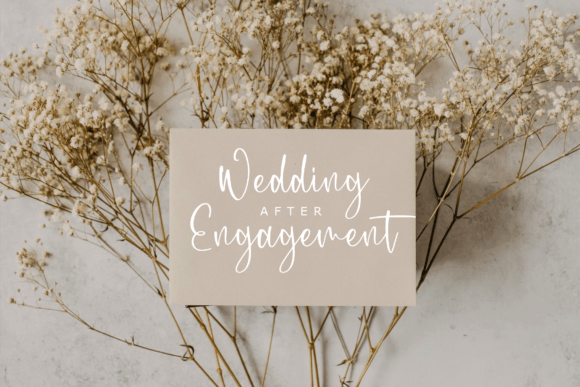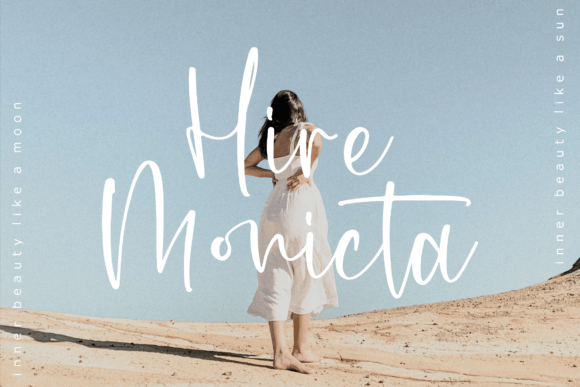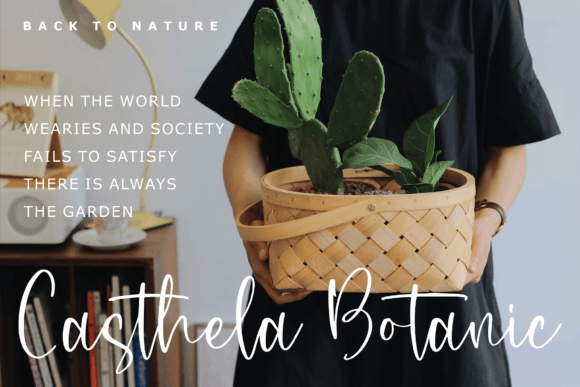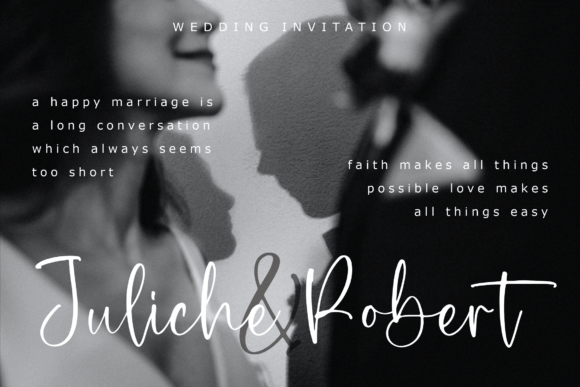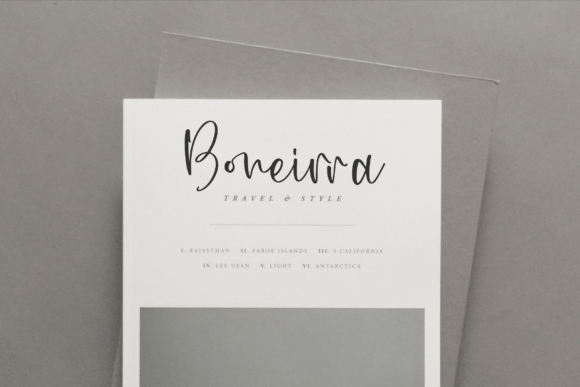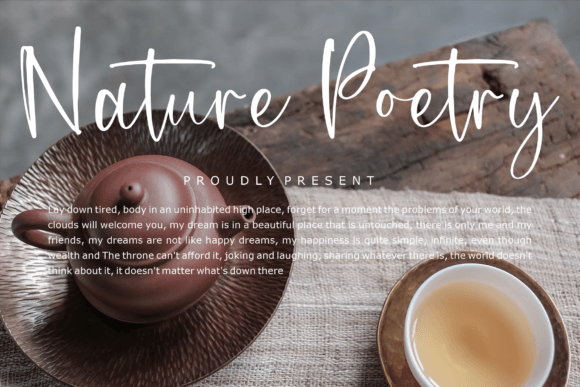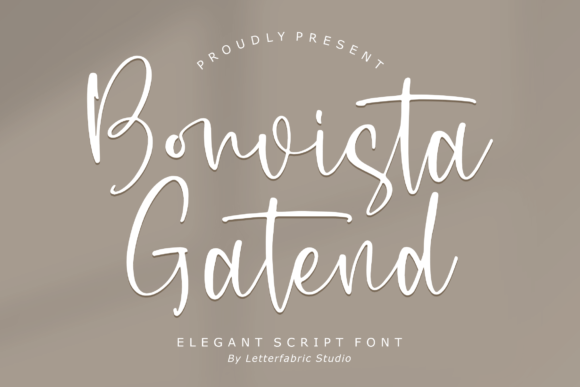
The Elegant Script Font That’s Stealing My Heart: Bonvista Gatend
I’ll never forget the design project that led me to discover Bonvista Gatend. I was working on a branding project for a luxury home goods client, and I was struggling to find the perfect font to capture their sophisticated yet approachable vibe. That’s when I stumbled upon Bonvista Gatend, and it instantly became my go-to font for the project.
So, what makes Bonvista Gatend so special? Here are a few things I love about this elegant script font:
- ✨ Elegant and sophisticated: Bonvista Gatend has a luxurious feel that’s perfect for high-end branding projects, product packaging, and marketing materials.
- ✅ Versatile: This font is suitable for a wide range of projects, from logos and business cards to posters, mugs, and t-shirts.
- 💫 Beautifully crafted: The attention to detail in Bonvista Gatend is impressive, with intricate lettering and a flowing script style that’s sure to impress.
Of course, no font is perfect, and Bonvista Gatend has a few quirks to be aware of:
- 🤔 Limited use in body text: While Bonvista Gatend is stunning as a headline or title font, it may not be the best choice for longer blocks of body text.
- ⚠️ Requires careful kerning: As with any script font, kerning can be a bit tricky with Bonvista Gatend. Make sure to adjust the spacing between letters to get the best results.
While I couldn’t find any information on the exact design story behind Bonvista Gatend, it’s clear that this font was crafted with love and care. The attention to detail and beautiful lettering make it a standout in any design project.
| What type of projects is Bonvista Gatend best suited for? | Bonvista Gatend is perfect for logos, branding projects, homeware designs, product packaging, mugs, quotes, posters, shopping bags, t-shirts, book covers, name cards, invitation cards, greeting cards, labels, photography, watermark, special events, and all your other lovely projects that need a beautiful script taste. |
| Is Bonvista Gatend a difficult font to read? | As with any script font, Bonvista Gatend may be more challenging to read in longer blocks of text. However, it’s perfectly legible as a headline or title font, and can be used effectively in a variety of design projects. |